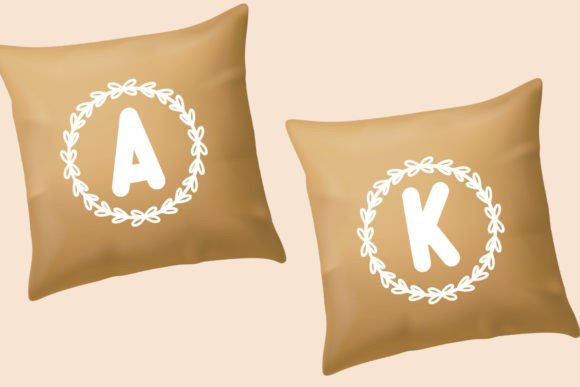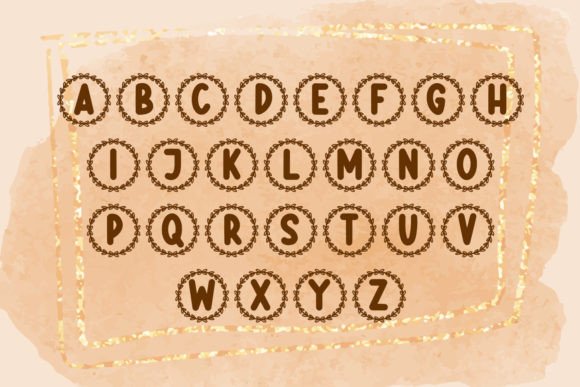
Introduction to Monogram Bittilove Font
Monogram Bittilove is a beautiful monogram font.
Monogram Bittilove is a beautiful monogram font. This font will add a feeling of love to any craft idea, be it wedding crafts, invitations, greeting cards, Valentines, logos, and others
Key Features of Monogram Bittilove Font
Why Choose Monogram Bittilove Font?
Monogram Bittilove Font offers exceptional quality and versatility, making it a valuable addition to your design toolkit. Whether you’re creating for personal projects or commercial use, Monogram Bittilove Font delivers professional results.